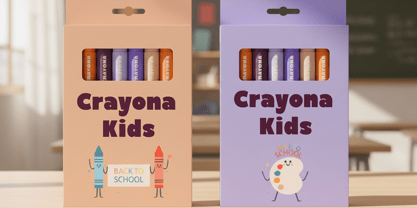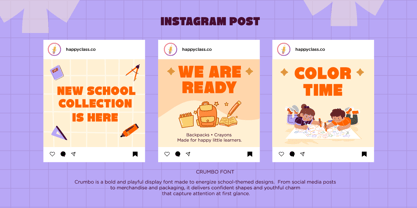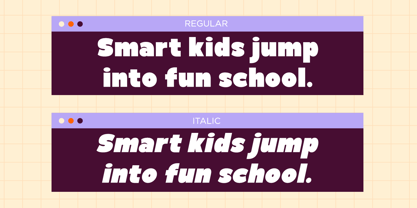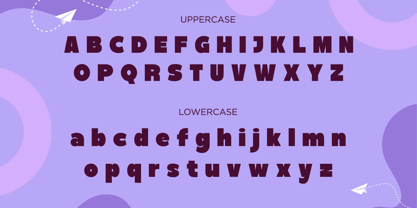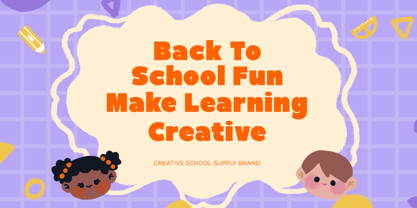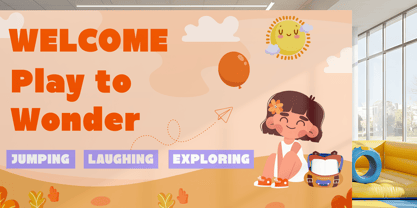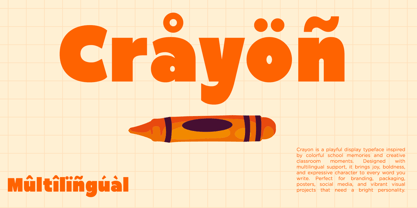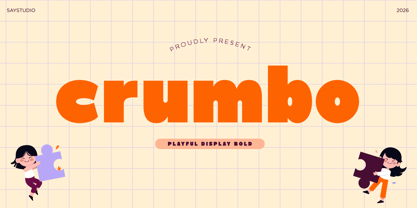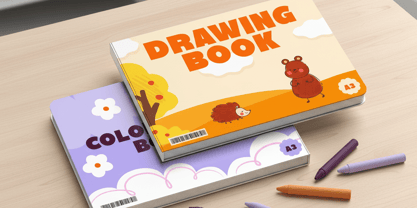
Crumbo
by Say Studio
The Crumbo Font Family was designed by Mussyayin and published by Say Studio. Crumbo contains 2 styles and family package options. More about this family
Crumbo is a bold playful display font crafted to infuse joy, energy, and character into every design. Featuring chunky shapes, rounded edges, and a friendly personality, Crumbo creates a fun visual rhythm that captures attention instantly. This font is ideal for creative projects that require warmth, playfulness, and high visual impact, while ensuring strong legibility across various layouts. It is perfectly suited for children's branding, kids' products, educational materials, playful logos, packaging design, posters, book covers, social media graphics, sticker packs, merchandise, and cheerful advertising campaigns. Crumbo adds a lively, friendly tone, making designs feel approachable, energetic, and emotionally engaging—perfect for brands aiming to convey a fun, modern, and memorable identity. With its bold weight and playful proportions, Crumbo empowers designers to craft joyful storytelling, colorful compositions, and expressive typography. Whether for digital content or print, this font provides your visuals with a unique playful charm that stands out in crowded creative markets. Thank You, Have a Good Day! Saystudio
Designers: Mussyayin
Foundry: Say Studio